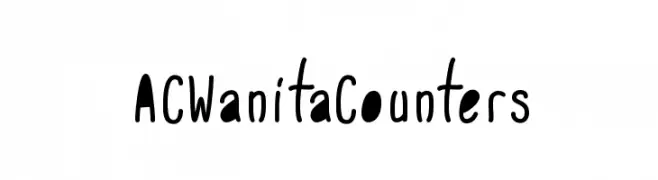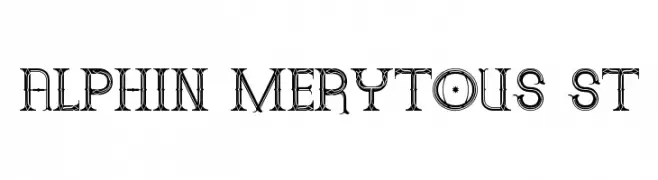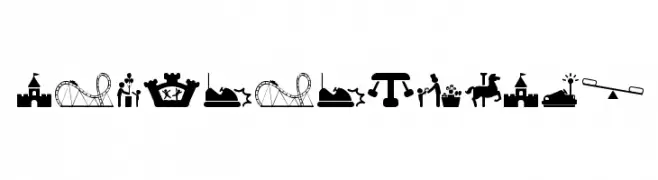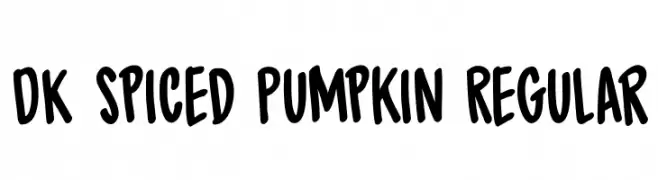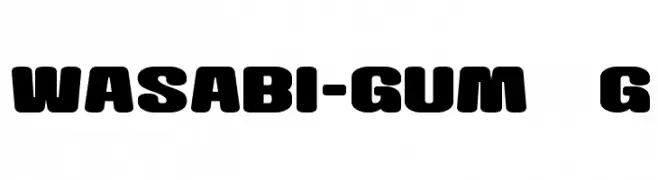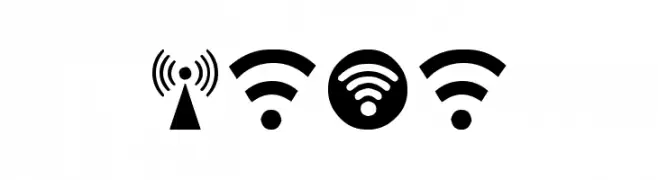
Extraterrestrial-themed decorative font with alien heads and symbols.
A bold, playful font with rounded edges and a strong, impactful presence.
Icon-based decorative font themed around WiFi and wireless signals.
A decorative pictogram font featuring amusement park icons.
A playful, bold handwritten font with whimsical, rounded characters.
An ornate and decorative font with intricate detailing and elegant embellishments.
Hand-drawn comic-style speech and thought bubble outlines.
A clean, modern sans-serif font with a light weight and balanced structure.
A playful, hand-drawn font with bold, rounded characters and a whimsical style.